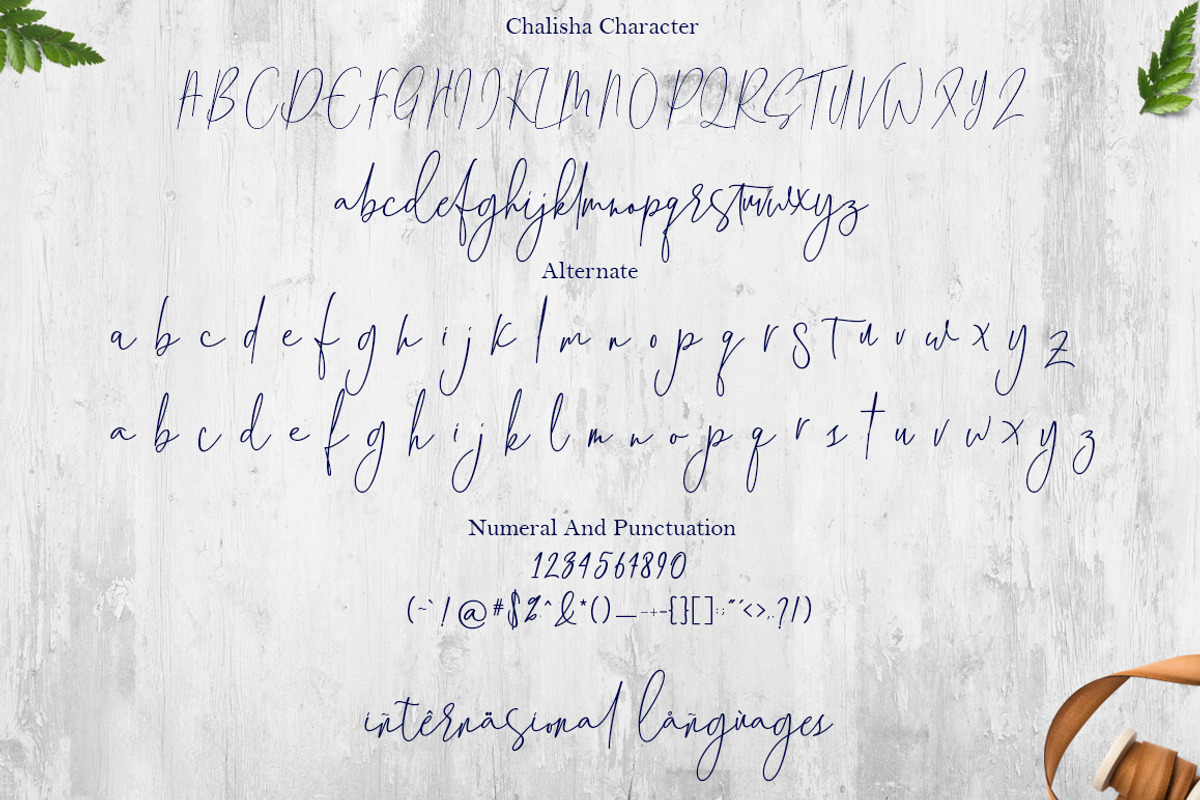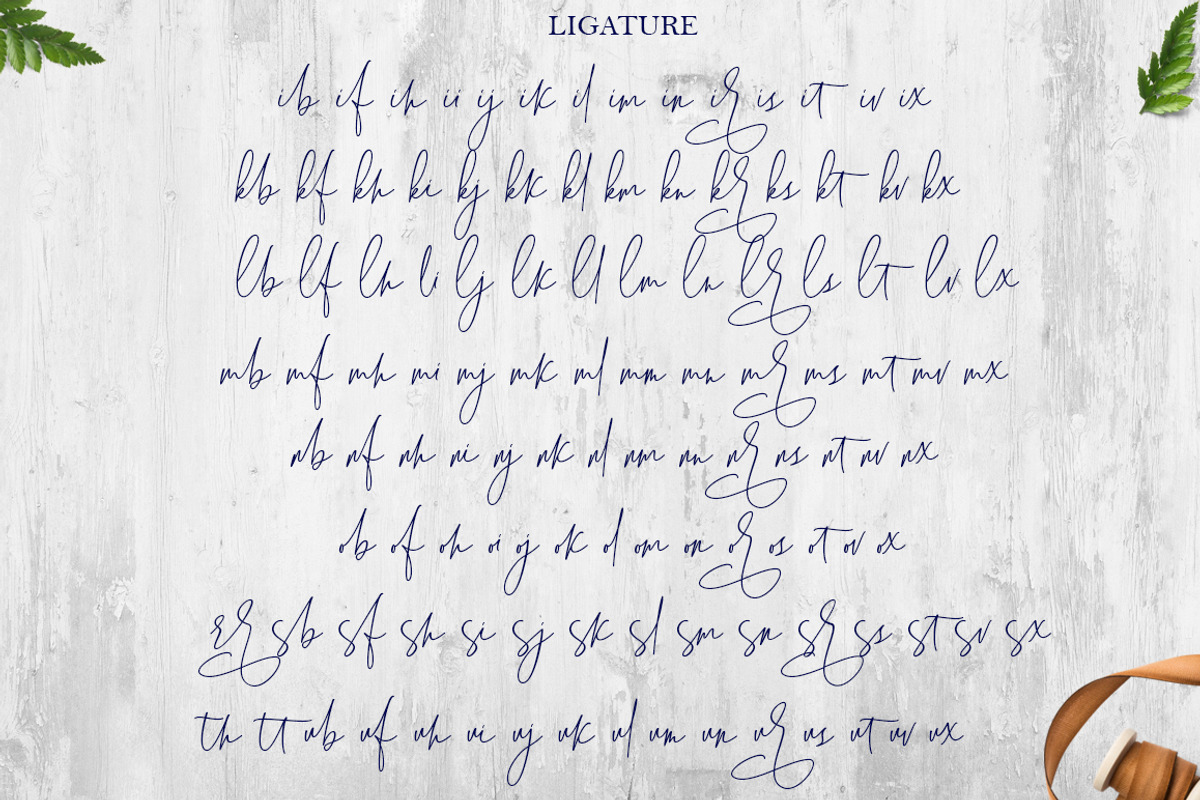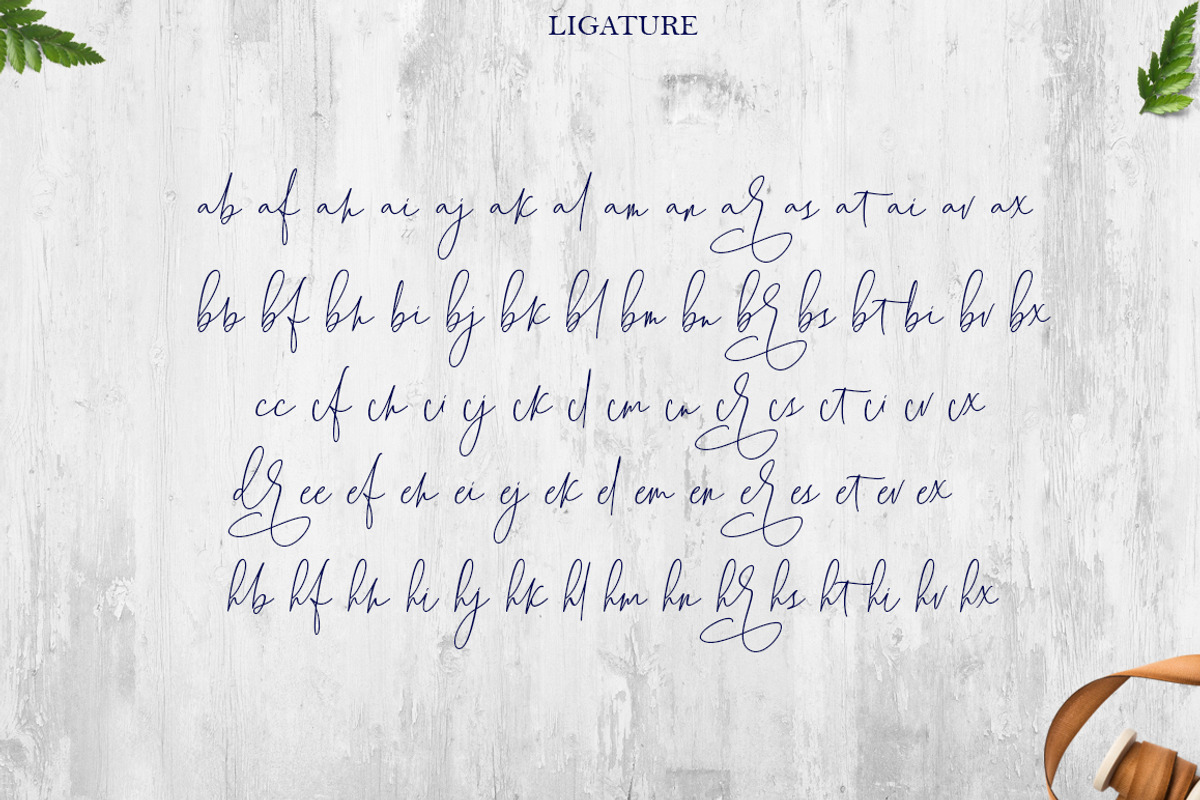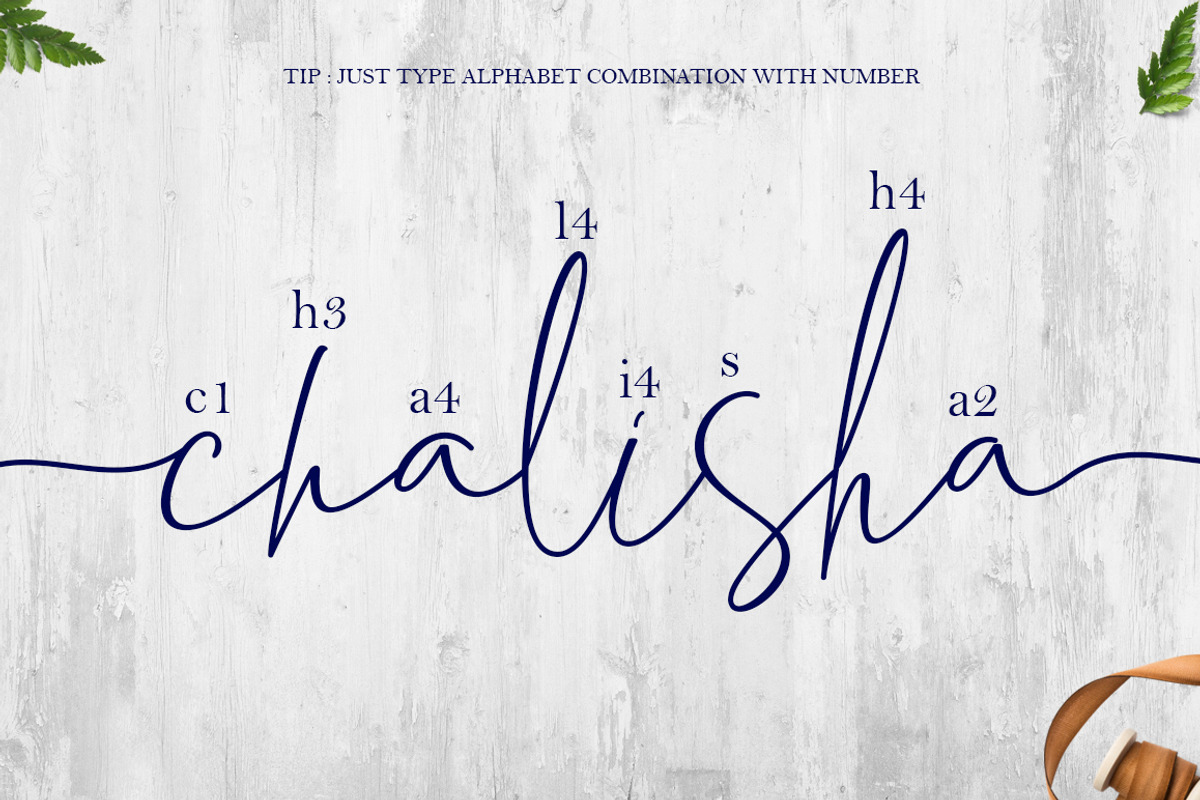
Chalisha Modern Calligraphy
New Fresh Chalisha is a signature-style font script, suitable for brand imaging, signatures, watermarks, business cards, clothing, magazines, web, and other design projects, beautiful and unique font scripts, it is a model of modern calligraphy typography, in combination with the style of calligraphy writing. This font has features like the previous font which is very easy to access swash and alternate, this font has 197 ligature just by combining letters and numbers you can access swash and alternate.
The Features of this fonts is:
- Standart ligatures